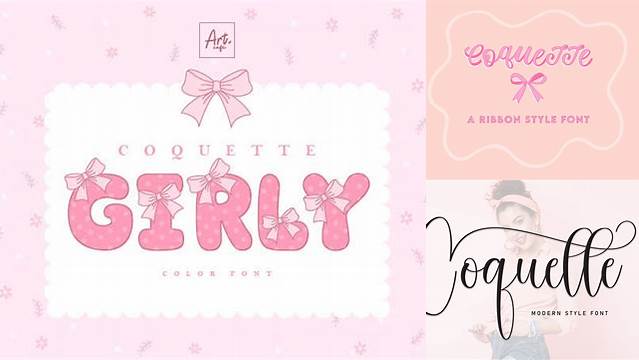
Coquette Fonts: Names & How To Use Them
Hey guys! Are you looking to infuse your designs with a flirty, feminine touch? Want to capture that coquette aesthetic that's all the rage right now? Well, you've come to the right place! In this article, we're diving deep into the world of coquette fonts. We'll explore what makes a font "coquette," showcase some of the best coquette font names out there, and give you tips on how to use them to create stunning visuals. Get ready to unleash your inner romantic and add a dash of playful elegance to your projects!
What Exactly Makes a Font "Coquette"?
So, what are coquette fonts, exactly? It's more than just slapping a pink filter on a typeface! The coquette aesthetic is all about embracing femininity, sweetness, and a touch of playful flirtation. Think delicate details, flowing curves, and a hint of vintage charm. Coquette fonts mirror these qualities, offering a range of styles that evoke feelings of romance, nostalgia, and effortless chic.
Here's a breakdown of the key characteristics that define coquette fonts:
- Soft and Rounded Shapes: Harsh, angular fonts need not apply! Coquette fonts often feature soft, rounded letterforms that create a gentle and approachable feel. Think of the difference between a sharp stiletto heel and a comfy, rounded ballet flat – that's the kind of contrast we're talking about!
- Elegant Serifs: Serifs, those little decorative strokes at the ends of letters, play a crucial role in coquette fonts. Look for fonts with delicate, elegant serifs that add a touch of sophistication and classic beauty. These serifs can be anything from subtle and refined to bold and dramatic, but they should always contribute to the overall feminine aesthetic.
- Flowing Curves and Swashes: A touch of whimsy is essential for any coquette font. Flowing curves and swashes – those extended, decorative strokes – can add a playful and romantic flourish to your designs. These elements create movement and visual interest, making your text feel more dynamic and engaging.
- Light to Medium Weight: While bold fonts can sometimes work in a coquette design, lighter weights are generally preferred. Light to medium weight fonts create a sense of airiness and delicacy, which is essential for capturing the coquette aesthetic. Think of the difference between a heavy wool coat and a light, flowing dress – that's the kind of visual effect we're aiming for.
- Vintage Inspiration: Many coquette fonts draw inspiration from vintage typography styles, particularly those from the Victorian and Art Nouveau eras. These styles often feature intricate details, elegant serifs, and a sense of timeless beauty. Incorporating vintage-inspired fonts into your designs can add a touch of nostalgia and sophistication.
In essence, coquette fonts are all about creating a visual experience that is both feminine and sophisticated. They are the perfect choice for projects that aim to evoke feelings of romance, nostalgia, and effortless chic.
Top Coquette Font Names to Add to Your Collection
Alright, let's get to the good stuff! Here are some of the best coquette font names that you should definitely add to your font library:
- Playfair Display: This elegant serif font is a classic choice for coquette designs. Its high contrast and delicate serifs exude sophistication and femininity. Playfair Display works beautifully for headings, titles, and logos, adding a touch of timeless elegance to any project.
- Mrs. Eaves: With its delicate serifs and flowing curves, Mrs. Eaves is a truly romantic font. It's perfect for creating wedding invitations, love letters, and other designs that require a touch of vintage charm. The font's subtle details and elegant letterforms make it a standout choice for any coquette-inspired project.
- Abril Fatface: Don't let the name fool you! While Abril Fatface is technically a display font, its rounded serifs and playful curves make it surprisingly versatile for coquette designs. Use it for headings or subheadings to add a touch of personality and visual interest. Its bold presence ensures that your message is conveyed with confidence and style.
- Poppins: If you're looking for a modern sans-serif font that still captures the coquette aesthetic, Poppins is a great option. Its rounded letterforms and clean lines create a friendly and approachable feel, while its geometric structure adds a touch of sophistication. This font is versatile enough to be used for both headings and body text, making it a practical choice for a wide range of projects.
- Aileron: Another fantastic sans-serif choice, Aileron offers a slightly more delicate and refined look than Poppins. Its light weight and elegant letterforms make it perfect for creating a sense of airiness and sophistication. This font is particularly well-suited for projects that require a subtle and understated touch.
- Cormorant Garamond: Inspired by the classic Garamond typeface, Cormorant Garamond offers a modern twist on a timeless design. Its elegant serifs and balanced proportions make it a versatile choice for both headings and body text. This font is perfect for projects that require a touch of sophistication and refinement.
So there you have it! A comprehensive guide to the wonderful world of coquette fonts. By understanding the key characteristics of these fonts and experimenting with different combinations, you can create stunning visuals that capture the essence of the coquette aesthetic. Go forth and unleash your inner romantic – your designs will thank you for it!